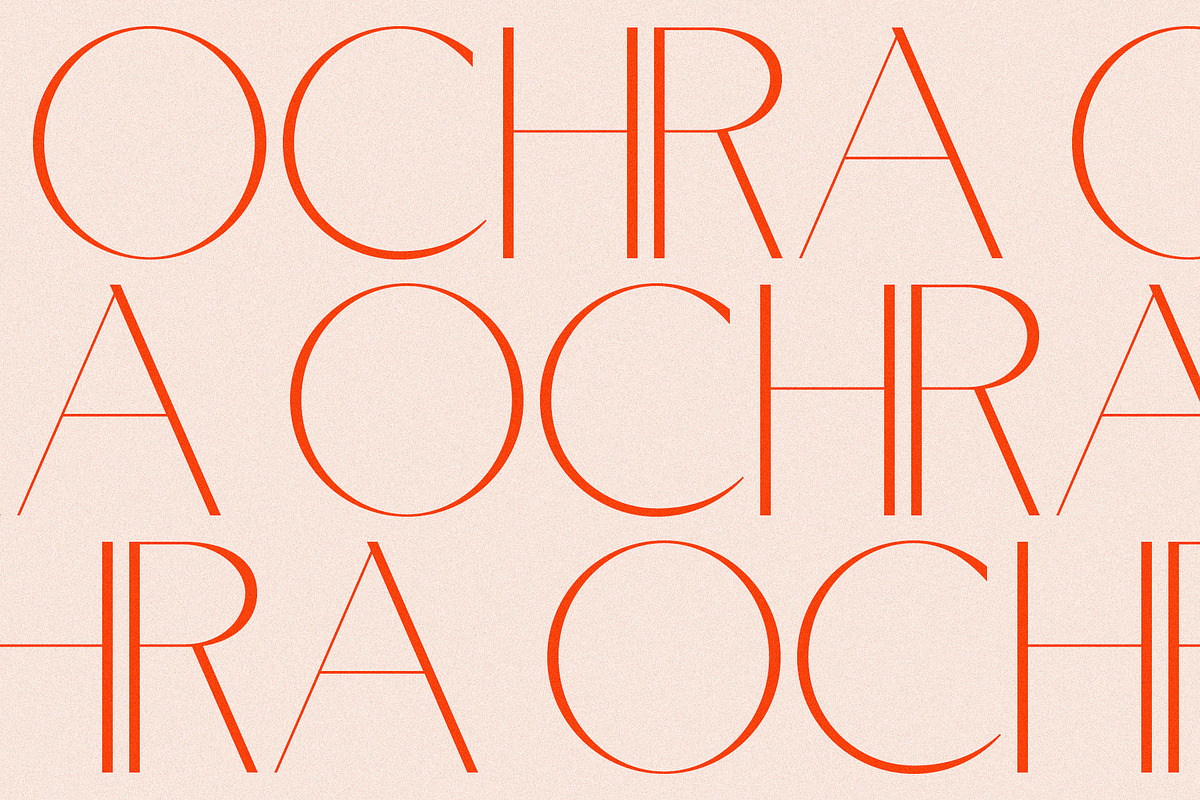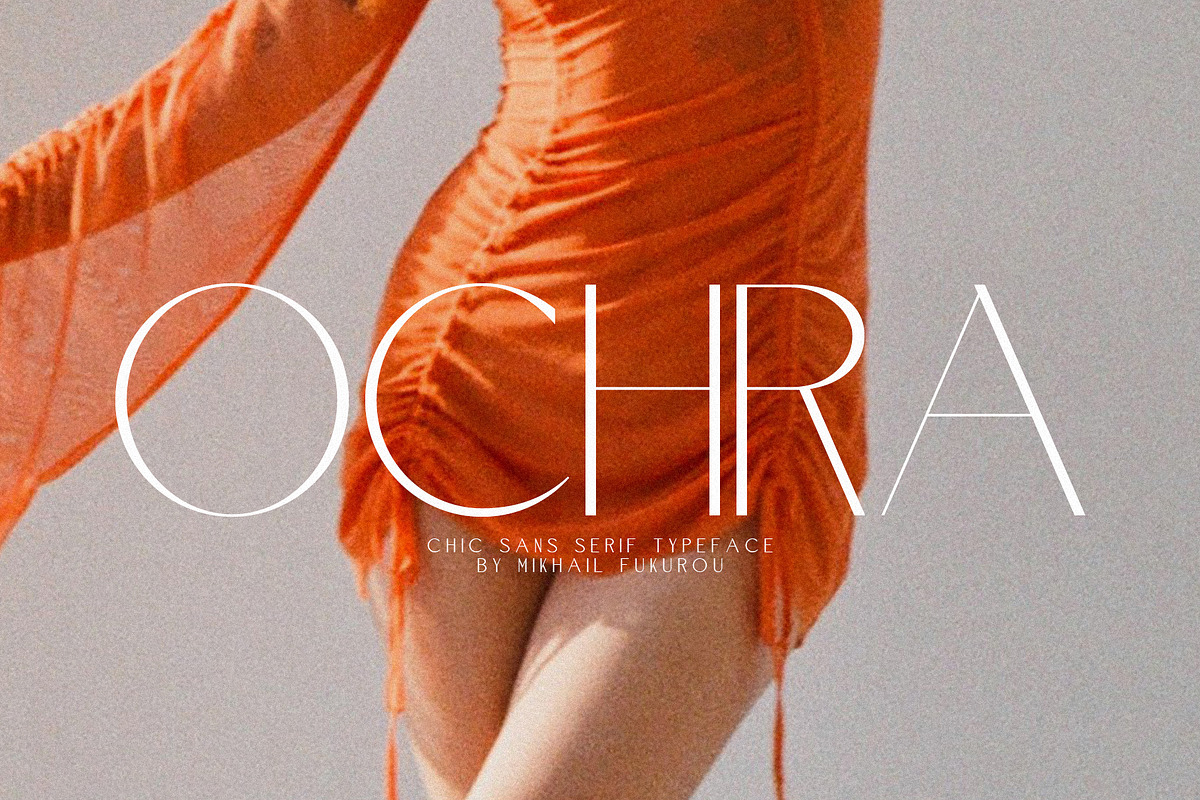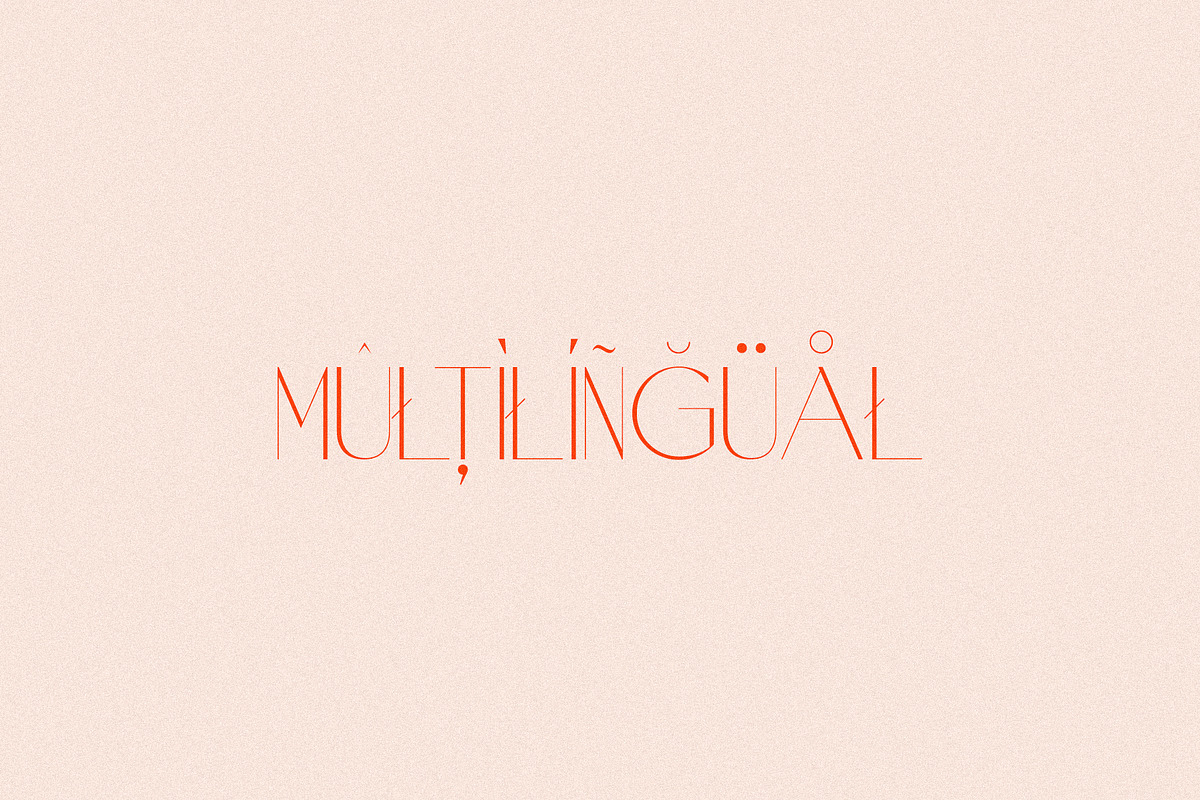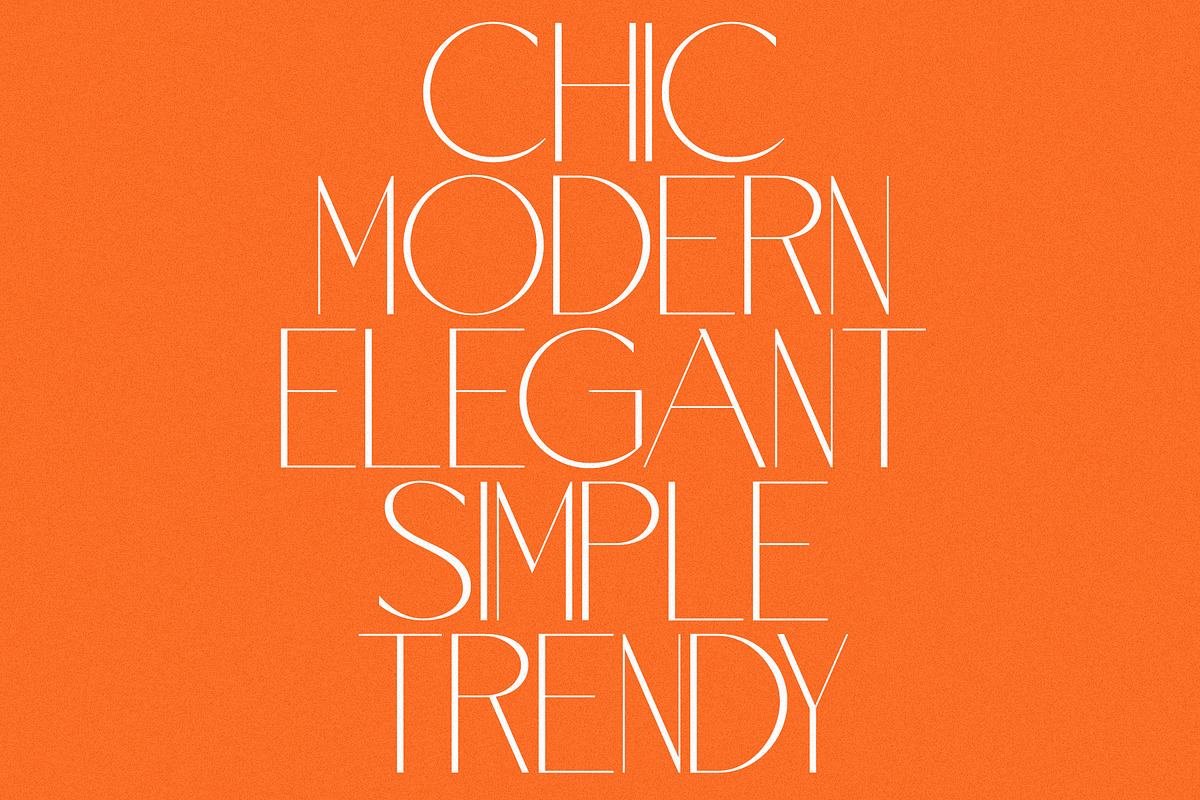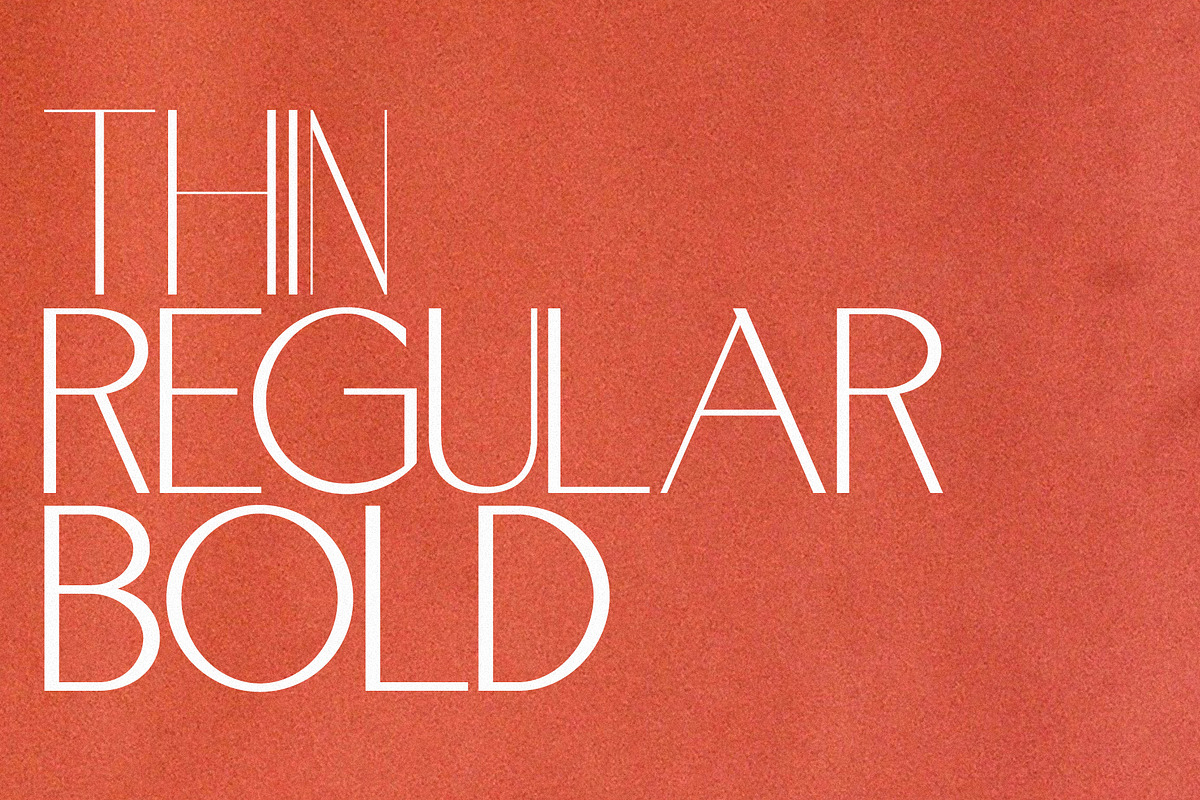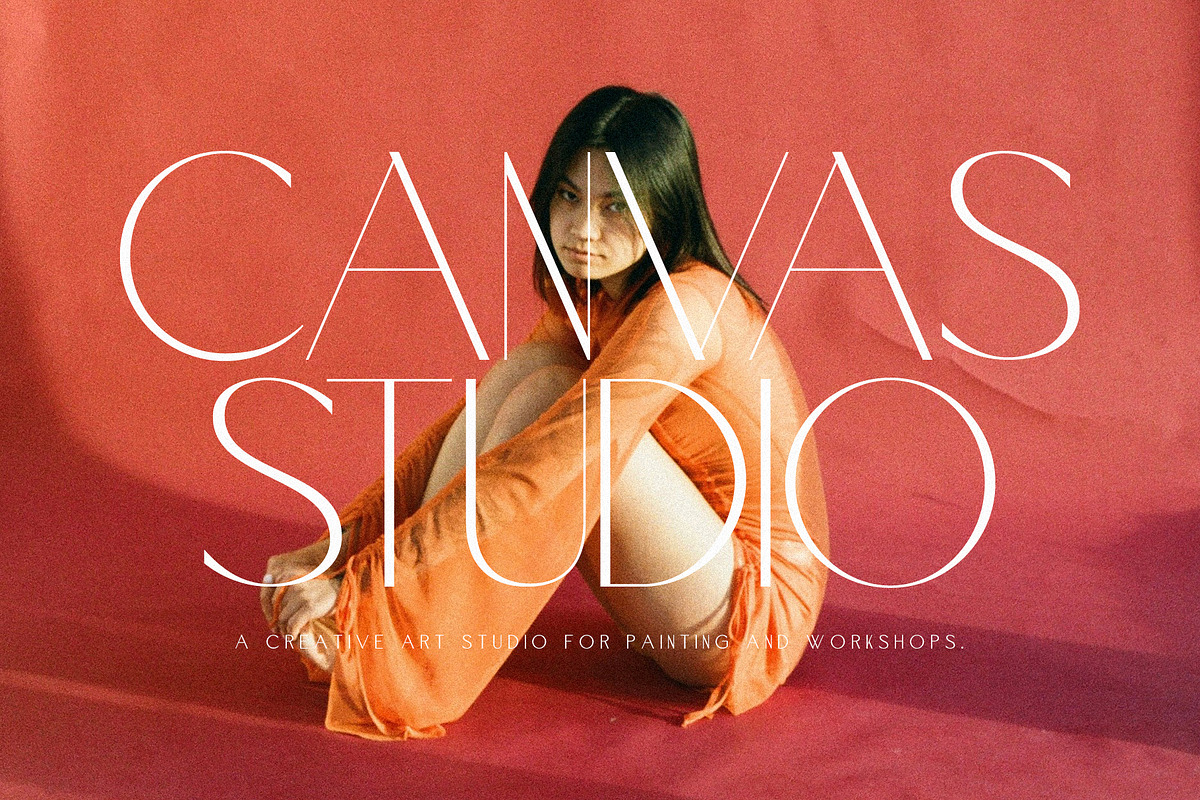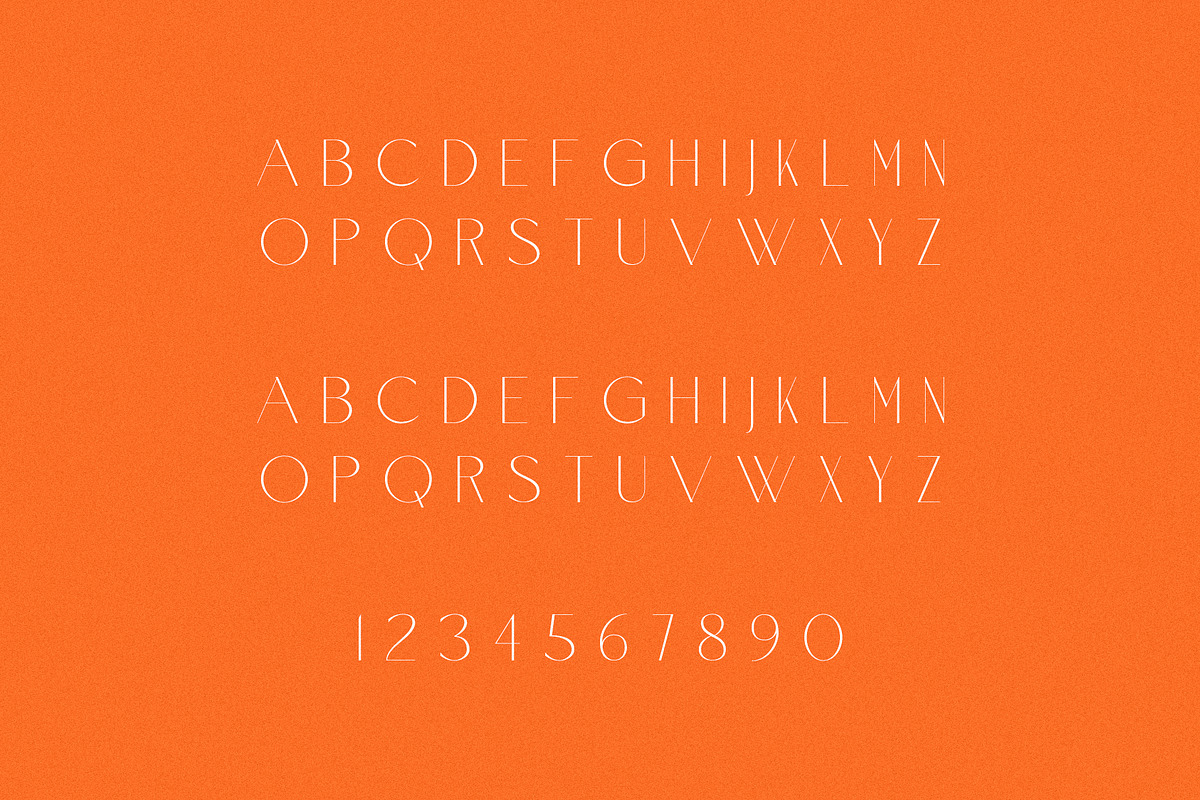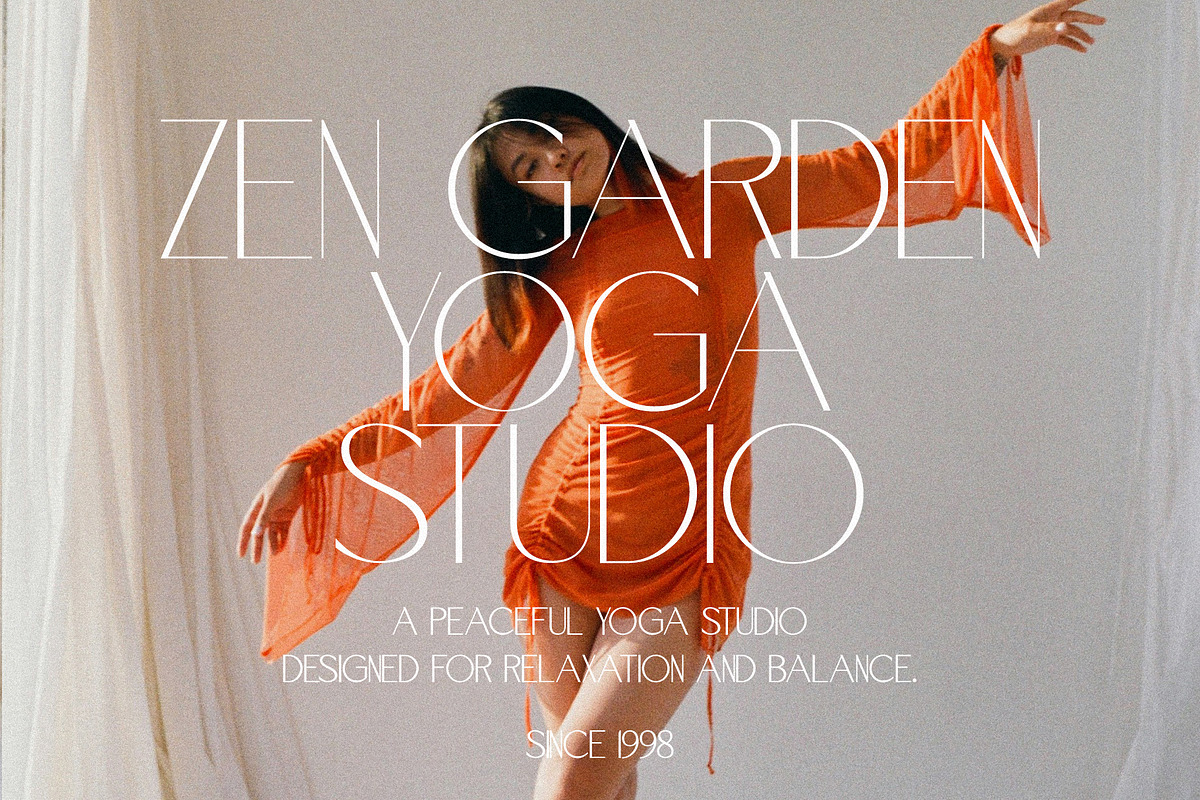
Ochra - Chic Trio Sans
Ochra - Chic Trio Sans is a modern and elegant sans-serif typeface designed as a versatile trio system, offering three harmonious styles that work seamlessly together across a wide range of design applications. Defined by clean lines, subtle curves, and a refined, chic aesthetic, it balances minimalism with expressive character while maintaining excellent readability. Ideal for branding, editorial design, logos, and high-end packaging.